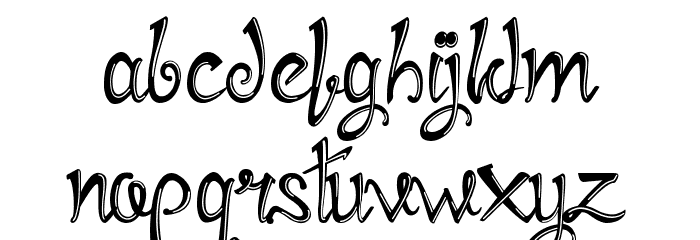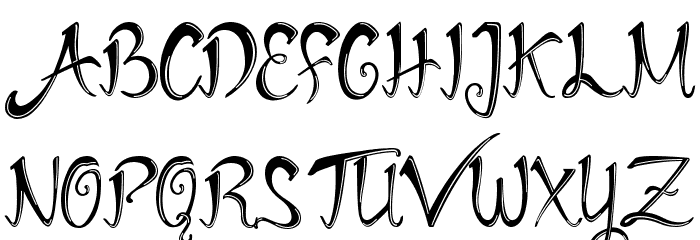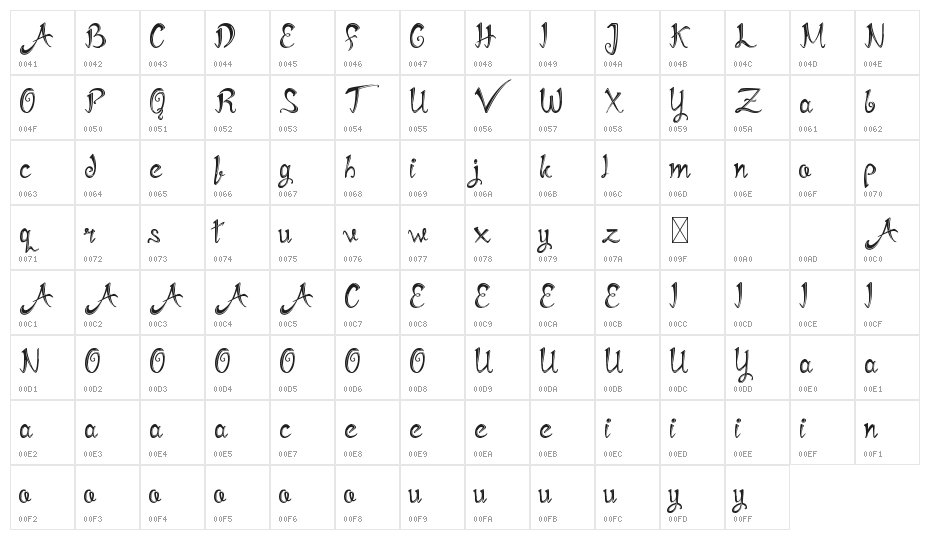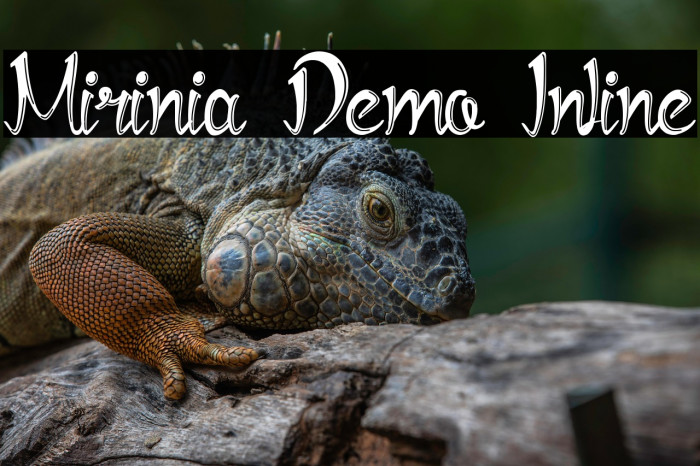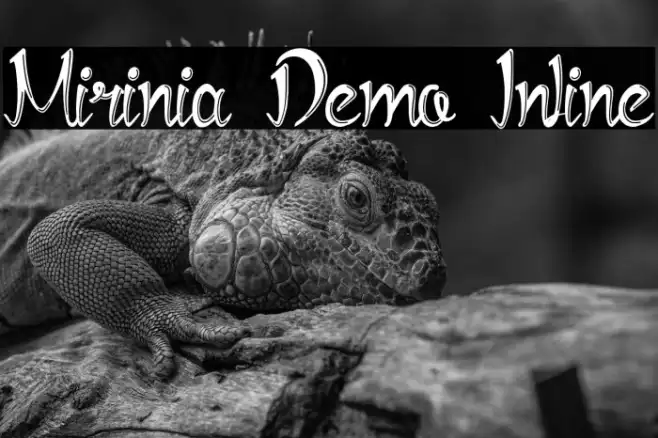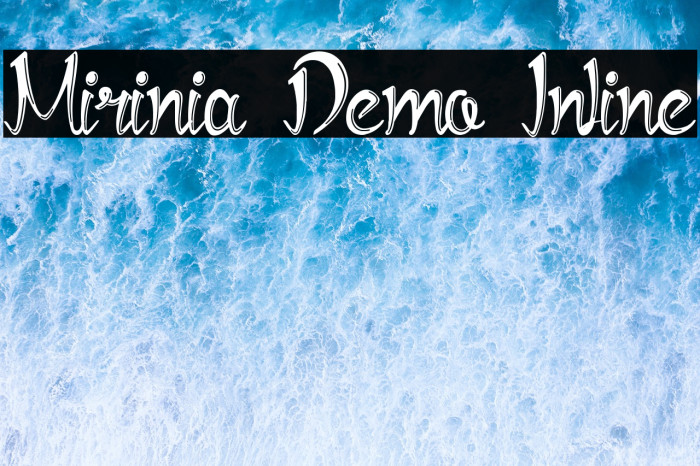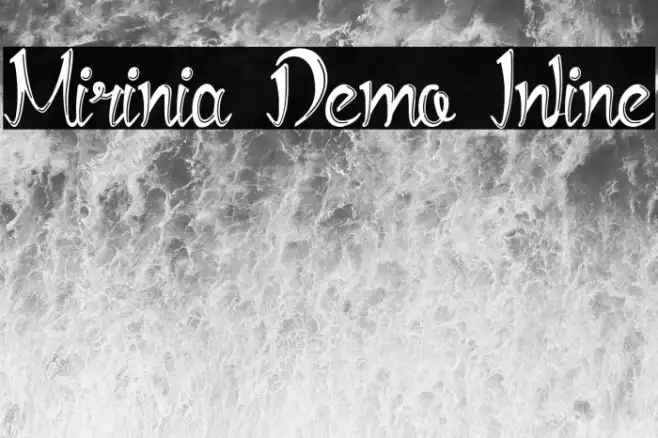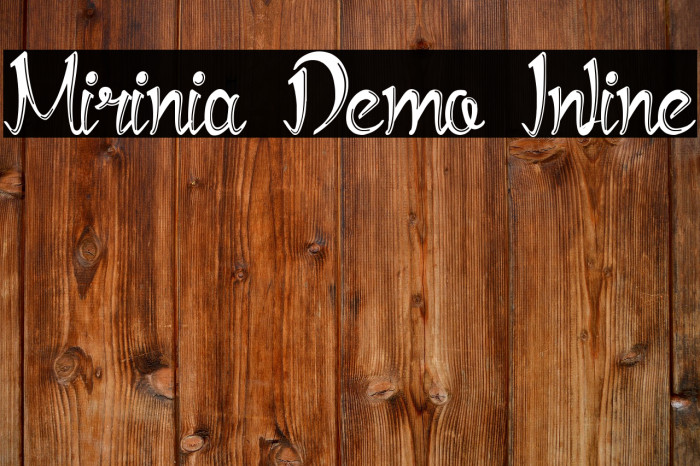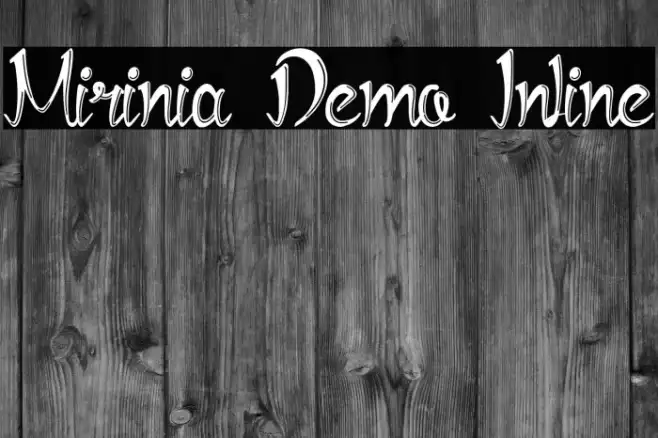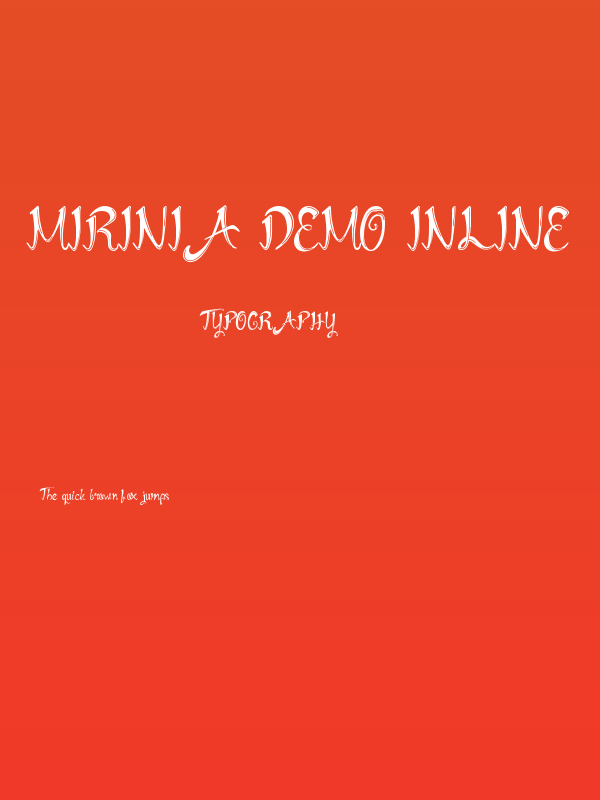
Mirinia Demo Inline Font
This font features an elegant and flowing script style, characterized by its intricate and artistic letterforms. The uppercase letters are bold and dynamic, with sweeping curves and decorative elements that give a sense of movement and flair. The lowercase letters maintain a consistent style, with a slightly more restrained design that complements the uppercase. The font includes a full set of numerals and a selection of special characters, each designed with the same attention to detail. The overall appearance is both sophisticated and playful, making it suitable for a variety of creative applications.
An elegant and flowing script font with intricate, artistic letterforms.
- Proposed Projects: Ideal for wedding invitations, greeting cards, branding projects, and decorative posters.
- Use Case: Logos, Headlines, Decorative text